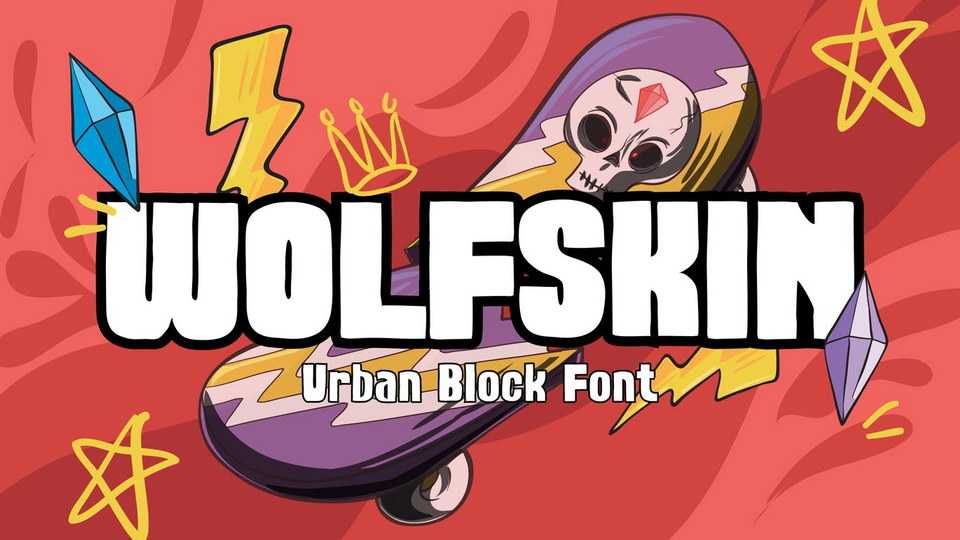
Download Wolfskin font, an bold block typeface that brings the urban life, street vibe, rebellious attitude, and edginess formally. There’s a slight hint of chaos in the wavy lines that form the letter.